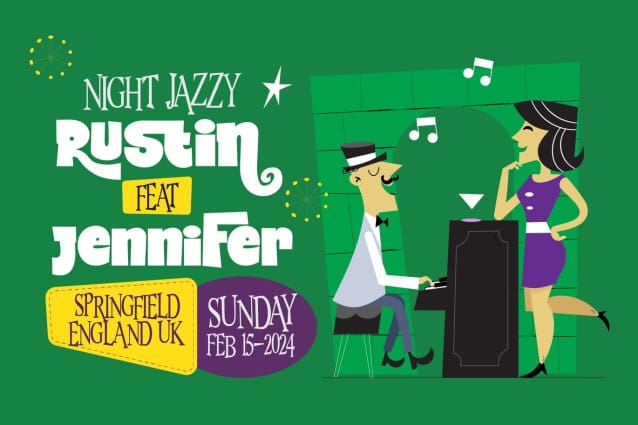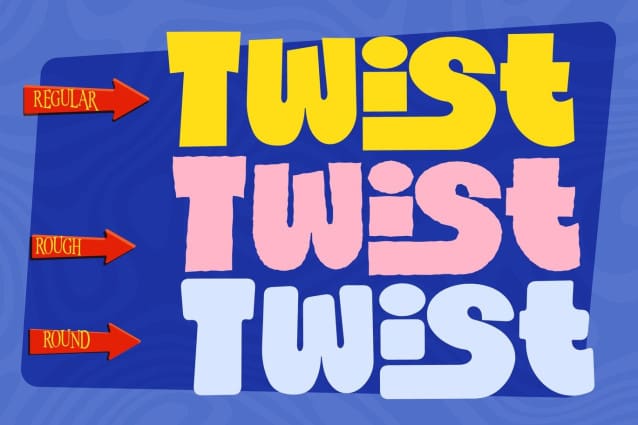
Twist Playful Font
Twist Playful Font is a bold typeface with a playful look. I tried to combine two fonts inspired by TV shows, mid-century storybooks. It is suitable for broadcast, labels, logos, magazines, clothing and other commercial purposes. You can choose between three styles, regular, round and rough, to achieve the retro/modern look you want.